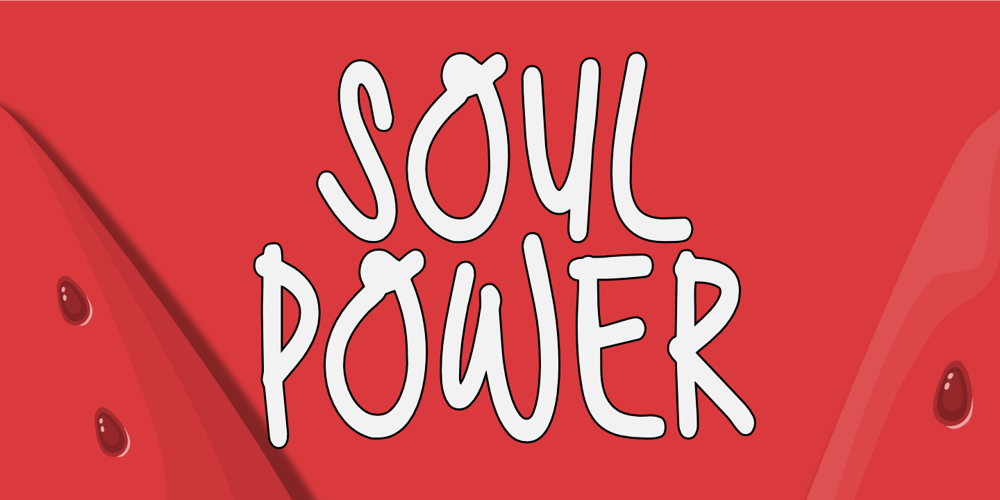
Soul Power Font Family was designed by Aldy Sidik and published by Epiclinez. Soul Power contains 1 styles and family package options. Get ready to turn heads with the dynamic appeal of Soul Power! This lively display font is designed to make a difference in your projects by infusing them with a fun personality. Its playful vibe is perfect for adding character to anything from social media posts to merchandise branding.Soul Power features : All Caps, numbers, symbols, and punctuations Multilingual Support. Fully accessible without additional design software Simple Installations Works on PC & Mac Thank You.